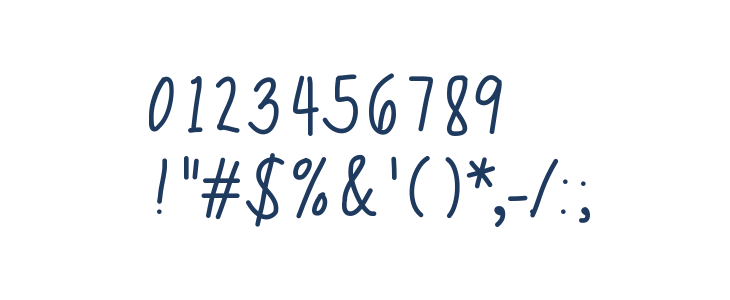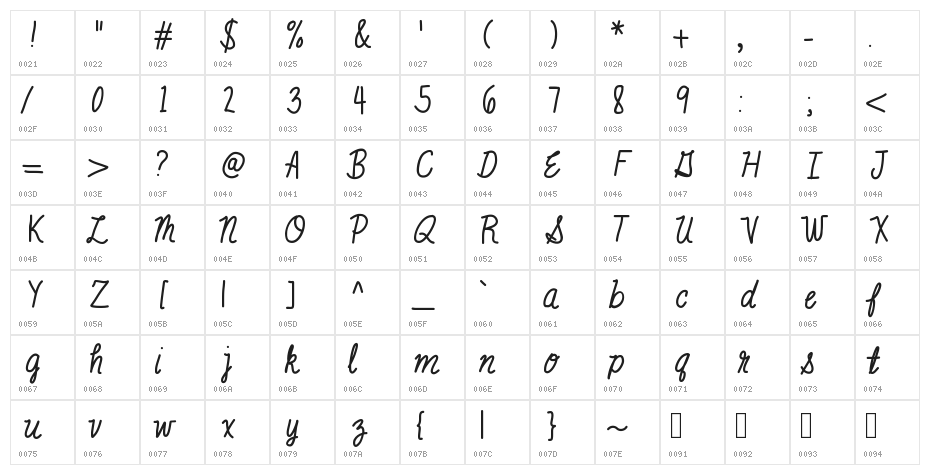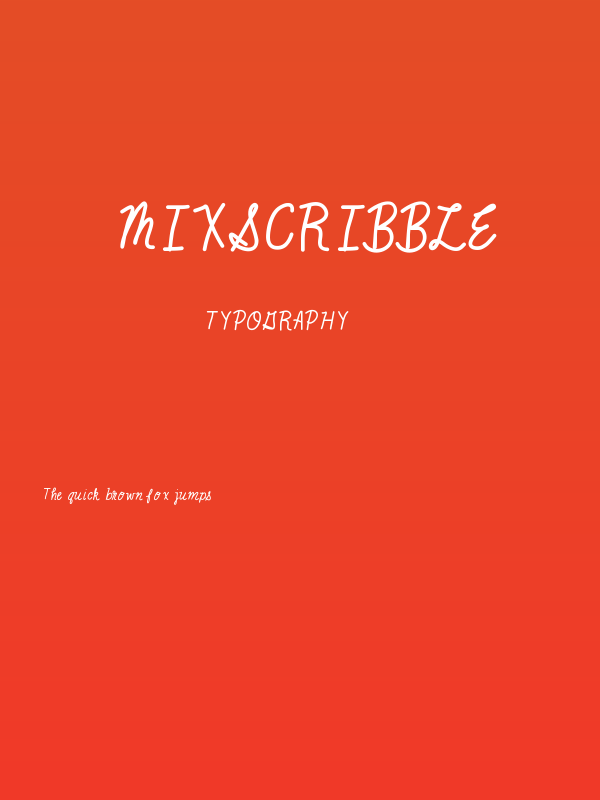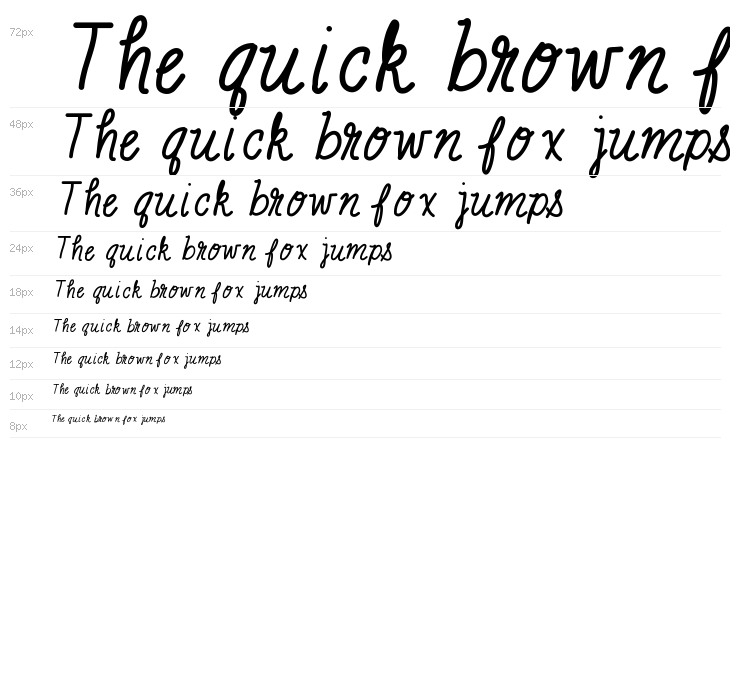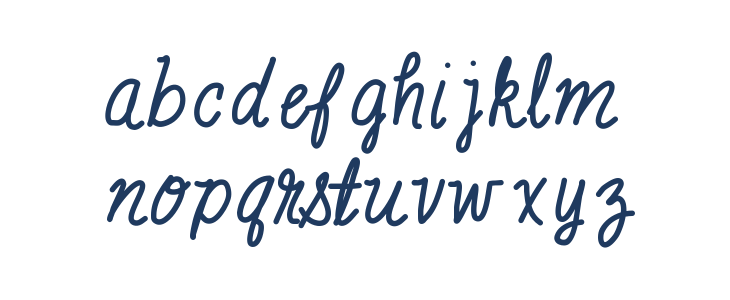
MixScribble Font
MixScribble Description
This font features a playful and casual handwritten style, characterized by its fluid and dynamic strokes. The uppercase letters exhibit a slight slant, adding a sense of movement and energy. The lowercase letters maintain a consistent flow, with rounded edges and varying stroke widths that mimic natural handwriting. Numbers and special characters are crafted with the same lively spirit, ensuring a cohesive appearance across all elements. The overall design is approachable and friendly, making it suitable for projects that require a personal touch.